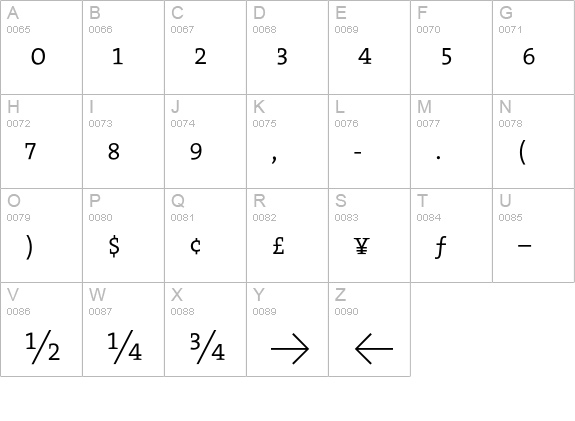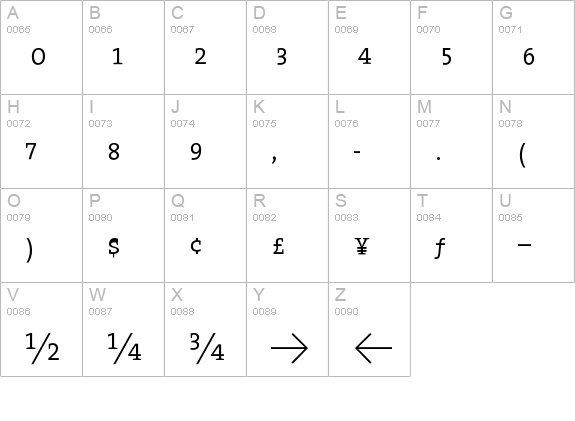
TheSerif ExtraLight Expert is an airy, ultra-refined variant in the TheSerif typeface family \xE2\x80\x94 well suited to minimalist headlines and refined display use.
TheSerif ExtraLight Expert font is a beautifully crafted typeface that exudes elegance and sophistication. Its delicate and refined letterforms are perfect for adding a touch of class to any design project. With its slim and slender strokes, TheSerif ExtraLight Expert font effortlessly captures attention and creates a sense of modernity. This font is not only aesthetically pleasing but also highly versatile. It is suitable for a wide range of applications, including branding, editorial design, advertising, and more. Whether you are designing a logo, an invitation, or a magazine layout, TheSerif ExtraLight Expert font will elevate your design to new heights. One of the best things about TheSerif ExtraLight Expert font is that it is available for free download at FontsMarket.com. This means that you can easily access this stunning typeface without any cost. It is a fantastic opportunity to enhance your design projects without breaking the bank. TheSerif ExtraLight Expert font's exquisite details and graceful curves make it a perfect choice for those who desire a sophisticated and contemporary look. Its legibility and clarity ensure that your message will be conveyed with utmost precision and style. Whether used for headlines or body text, this font will make your words come alive on the page. So why wait? Go ahead and download TheSerif ExtraLight Expert font from FontsMarket.com and experience the beauty and versatility it has to offer. With its free availability, you can add this extraordinary typeface to your design arsenal and create stunning visuals that leave a lasting impression.